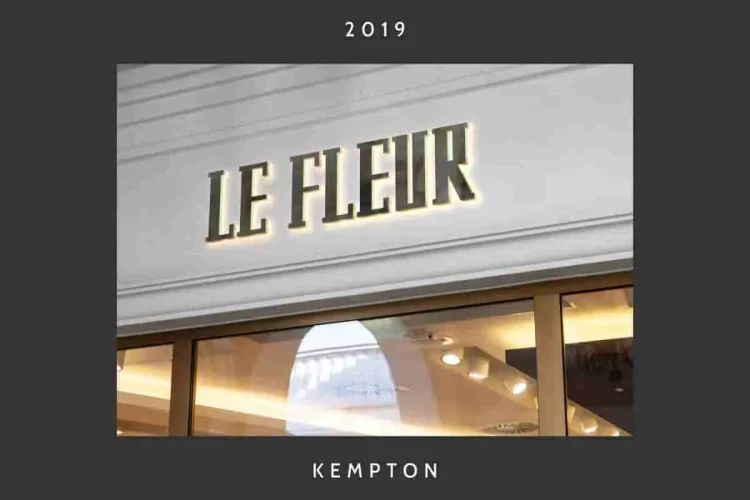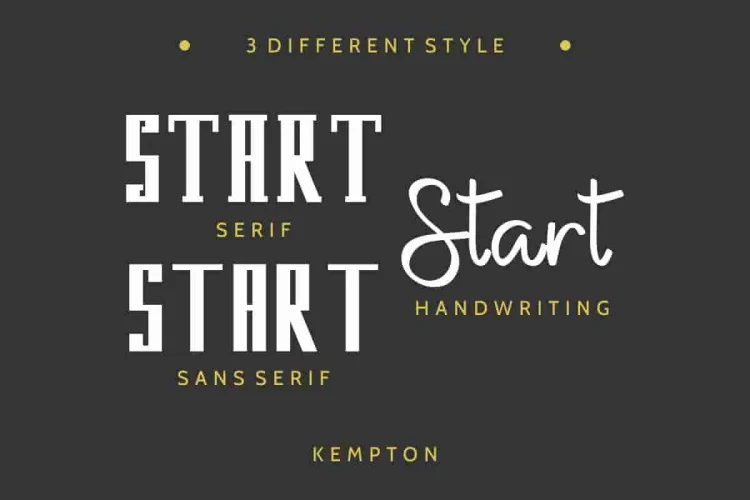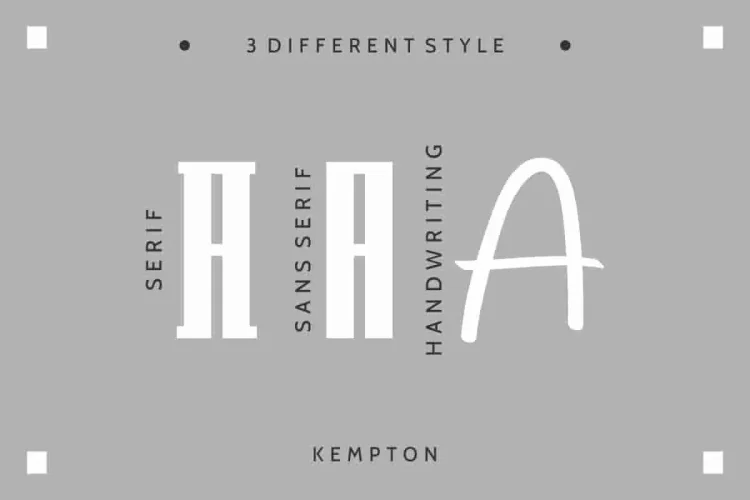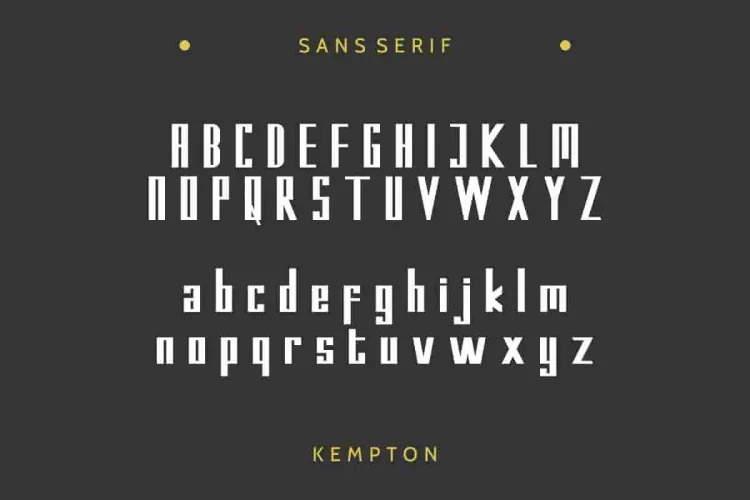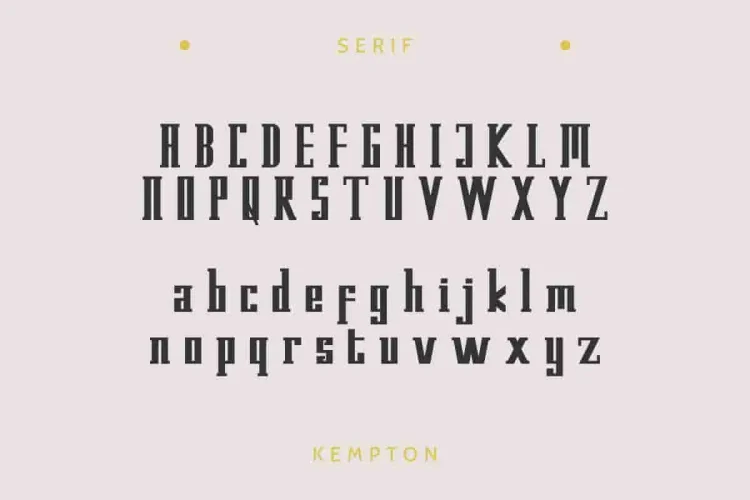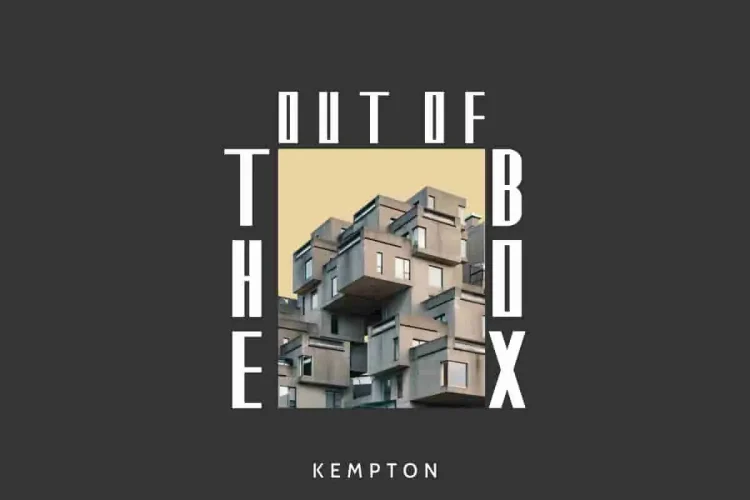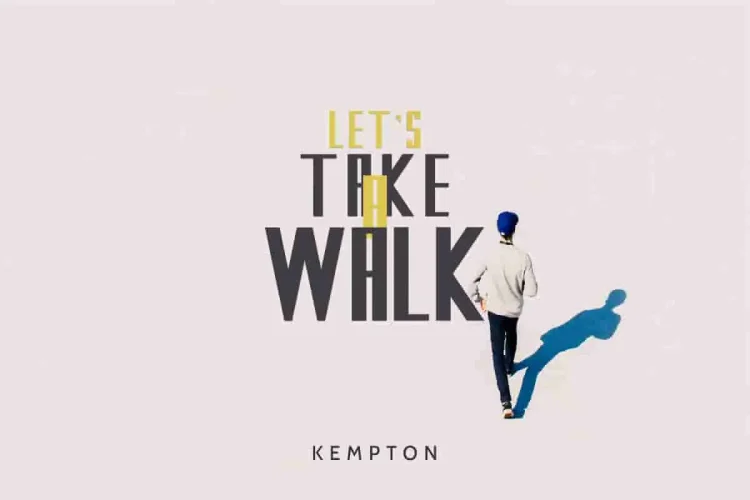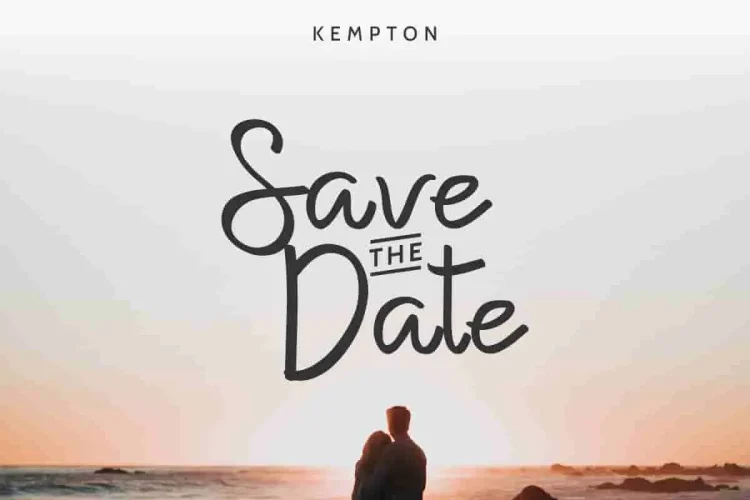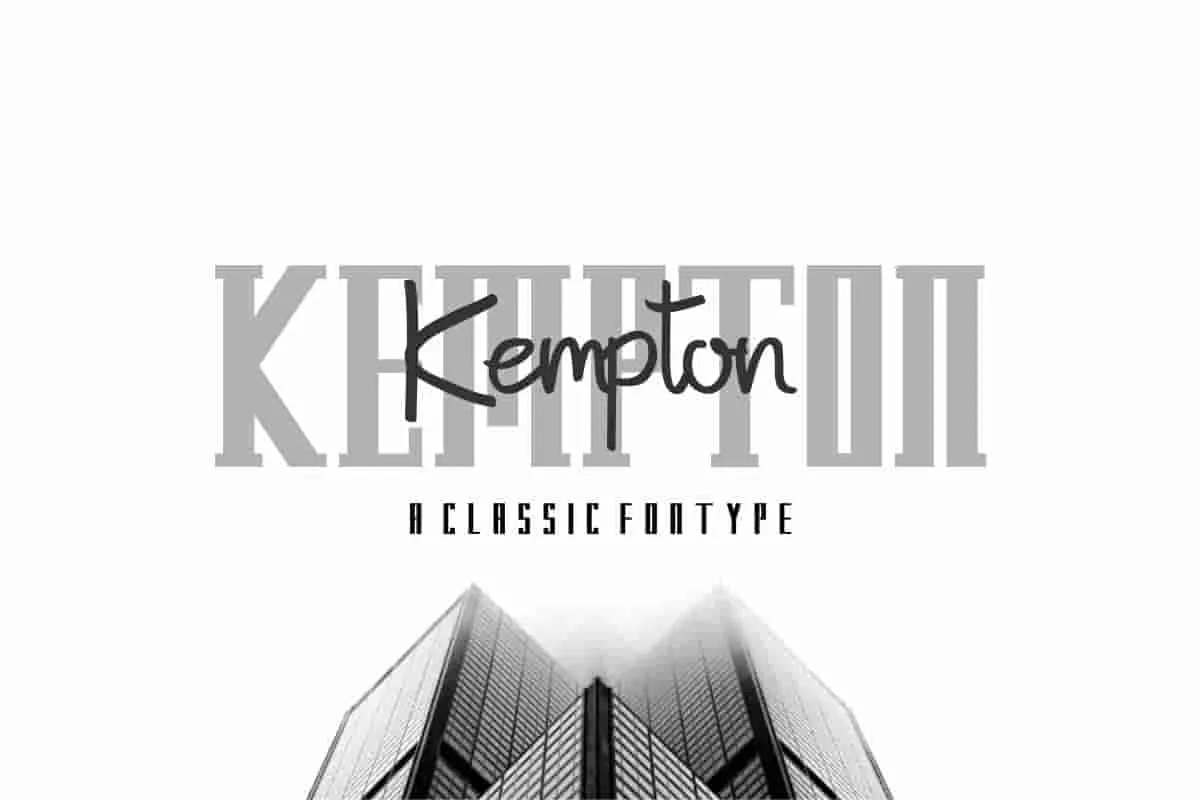
Kempton Handwriting Trio Font
Kempton Trio : Script, Sans and Serif
Hi Everyone! Introducing our newest font : Kempton! This is a 3 fonts on ONE family. Especially for elegant and personal designs, it has handwriting, Sans Display and Serif  font.
🔍 What Makes Kempton Truly Stand Out?
Each font style in the Kempton family is crafted to deliver impact while maintaining perfect visual balance:
• Serif – Structured and bold with elegant vintage charm. It’s perfect for headlines, branding, or editorial design where you want your words to command attention.
• Sans Serif – Clean-cut and modern with geometric strength. Ideal for professional branding, business materials, or minimalist layouts that demand clarity and precision.
• Handwriting – Organic, flowing, and personal. Designed to resemble natural pen strokes, this script style adds warmth and personality—great for beauty brands, personal logos, or handwritten-style quotes.
This sophisticated styling font will be perfect for branding, logo, photography and signature. It is so elegant, classy, strong and beautiful yet masculine. Kempton delivers both strength and grace.
🤔 Why Choose Kempton?
• 3 Fonts in 1 Family – Serif, Sans Serif, and Handwriting—perfectly balanced for mixing headers, body text, and accents.
• Modern Yet Timeless – Clean sans for clarity, bold serif for impact, and flowing script for that personal touch.
• Refined Aesthetic – Combines elegance with structure, making it ideal for fashion, beauty, lifestyle, and even masculine branding.
• Consistent Visual Language – Ideal for multi-platform branding—web, print, packaging, and more.
No need to search for three separate fonts anymore—Kempton Trio gives you all the styles you need in one cohesive, high-quality type family. Whether you’re designing for yourself or a client, Kempton ensures your project looks polished, distinctive, and professional.😍